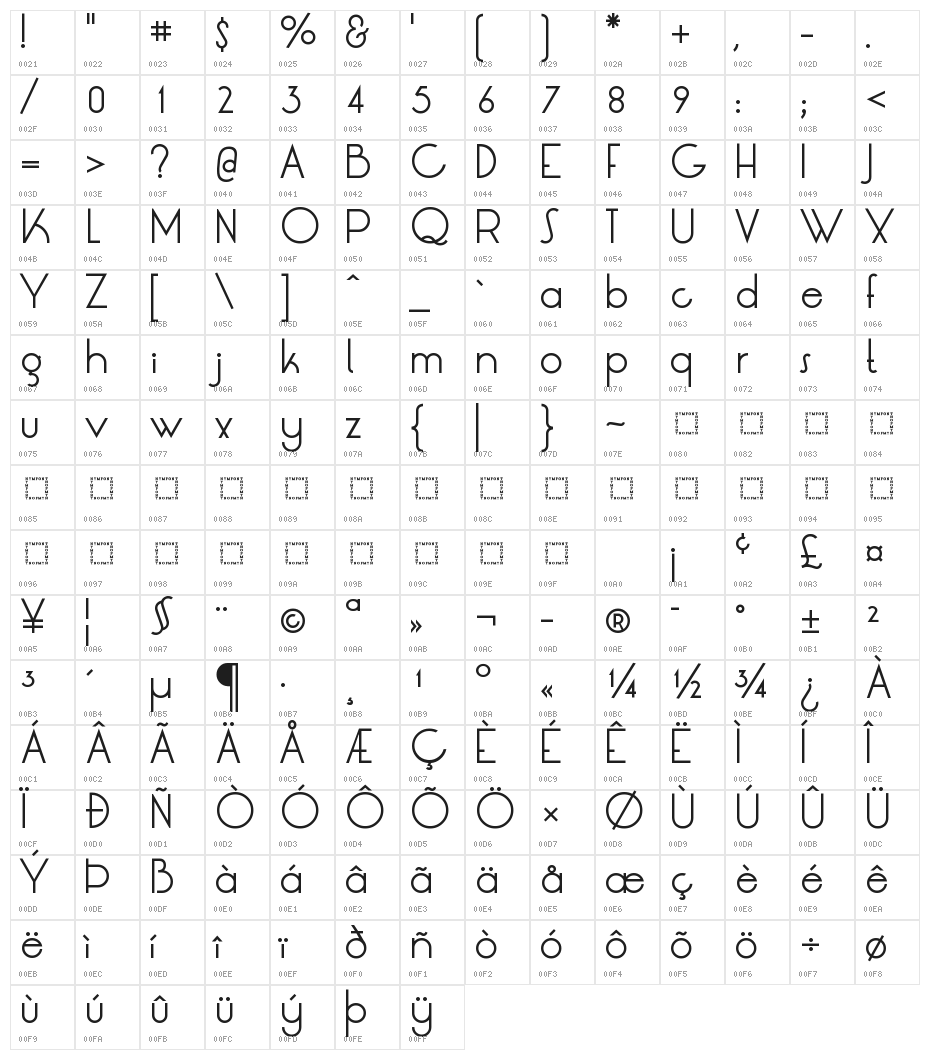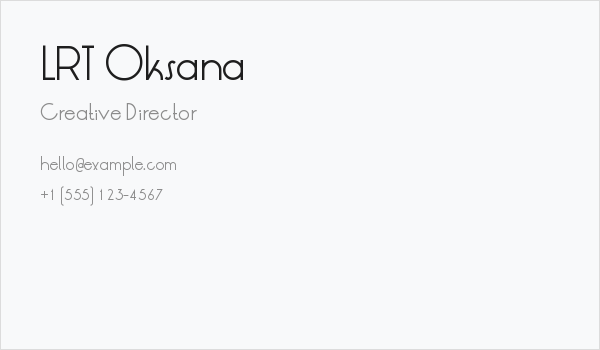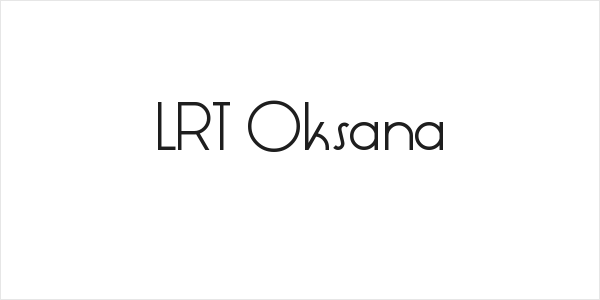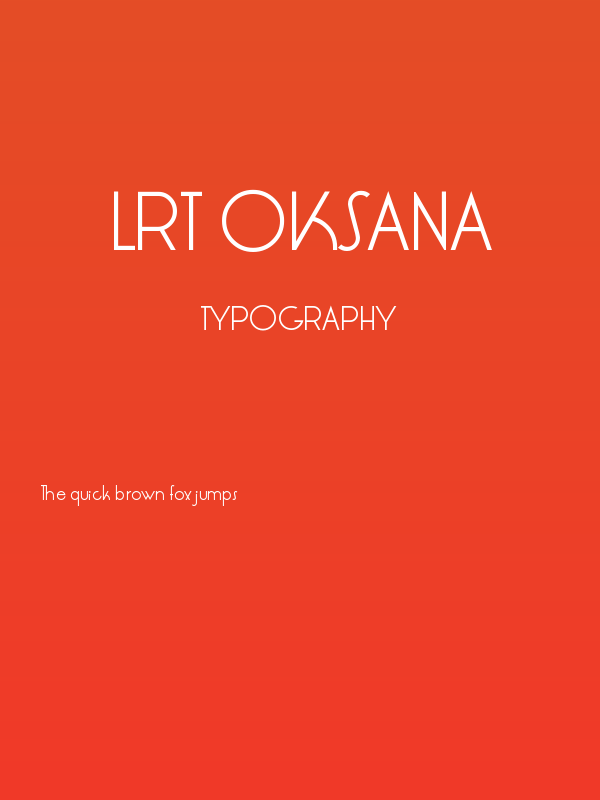
LRT Oksana Font
LRT Oksana Description
This font features a sleek and modern design with clean lines and geometric shapes. The uppercase letters are tall and narrow, giving a sophisticated and elegant appearance. The lowercase letters maintain a consistent style, with rounded edges that add a touch of softness to the overall look. The numerals are clear and easy to read, matching the style of the letters. Special characters are designed with the same attention to detail, ensuring a cohesive appearance across all elements. This font's simplicity and elegance make it versatile for various design projects.
| Proposed Projects | Ideal for branding, editorial design, advertising, and web design projects that require a modern and sophisticated look. |